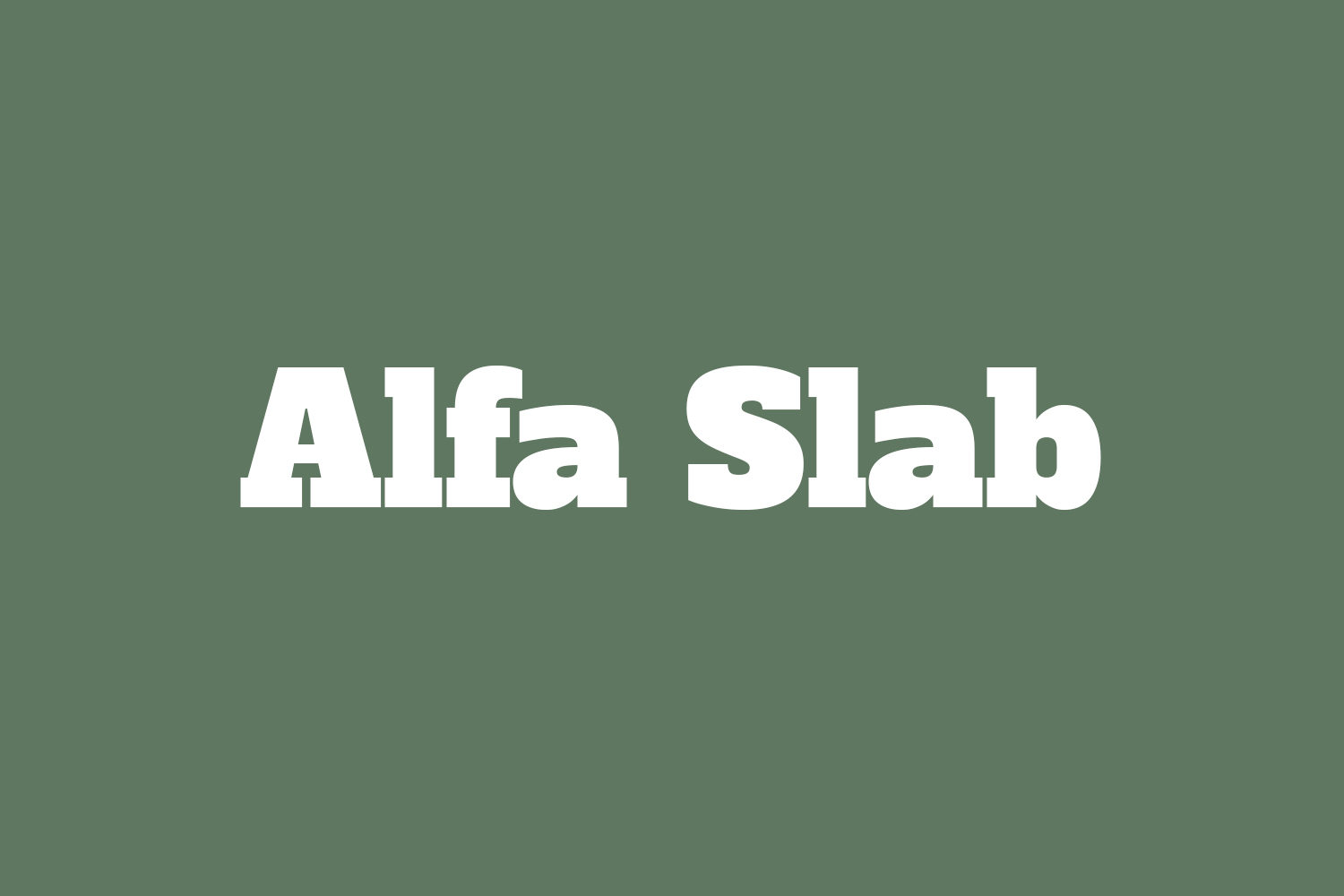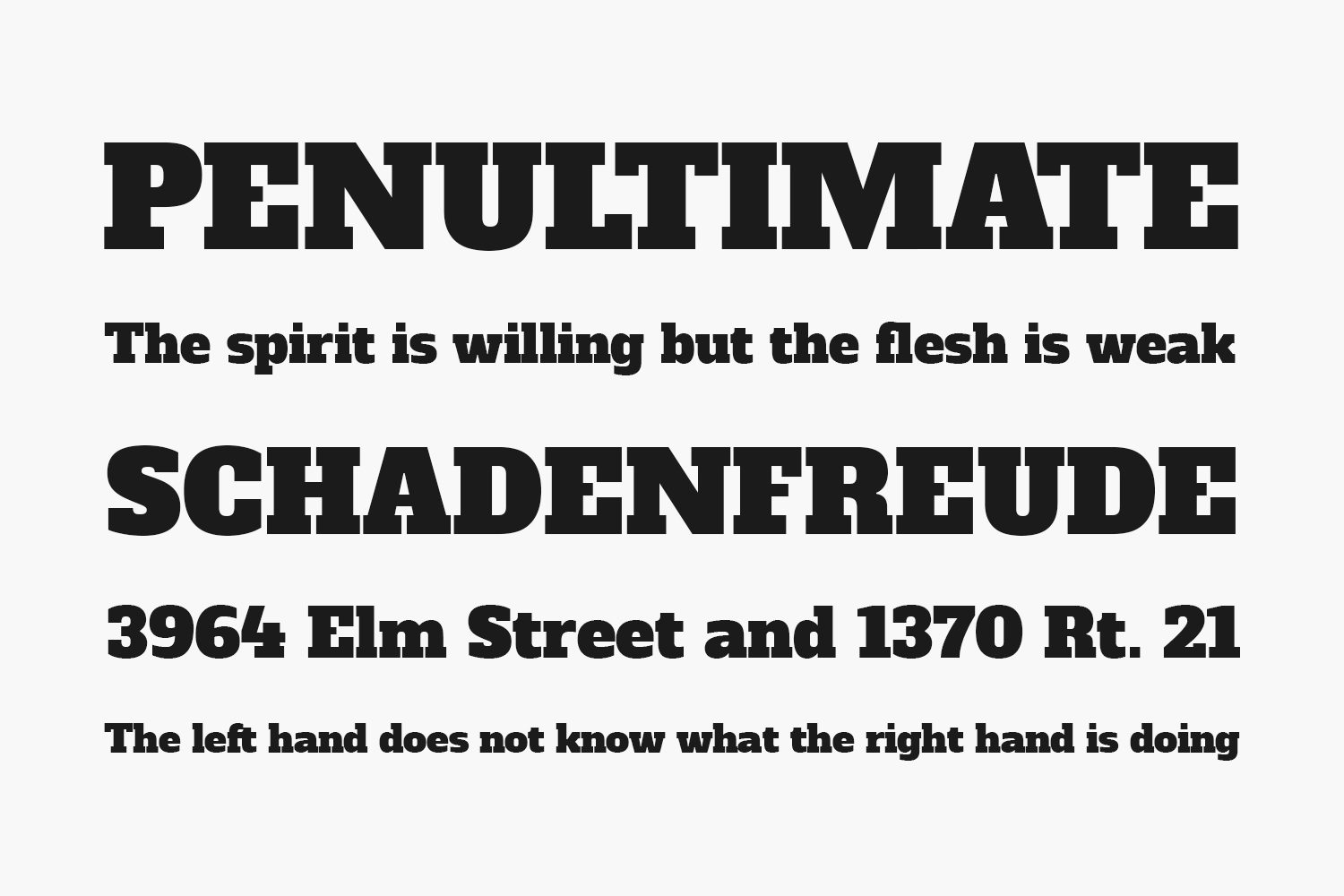
Alfa Slab Free Font is a contemporary take on the Six-lines Pica Egyptian created by Robert Thorne for the Thorowgood Foundry in 1921. Although initially based on that model, Alfa Slab One was designed with an extreme stem weight, big serifs, more stem contrast and gradual terminals with a single serif. All this attributes give Alfa Slab One a contemporary look with extreme black density.